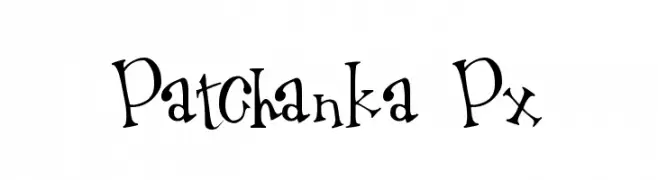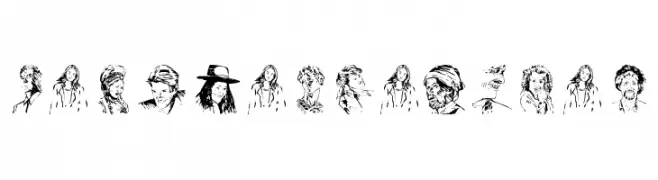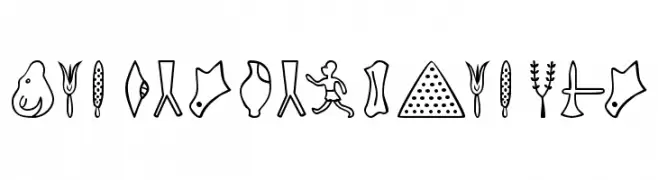
A bold, modern sans-serif font with clean lines and a strong presence.
A modern, bold italic sans-serif font with a dynamic and clean appearance.
A bold, block-like font with enclosed characters and a modern, playful style.
A playful and whimsical font with dynamic, irregular letterforms.
A decorative font featuring intricate silhouettes of people and animals.
Ancient pictographic decorative font with illustrative symbols.
A clean, modern sans-serif font with excellent readability.
Whimsical illustrated font themed around photography.